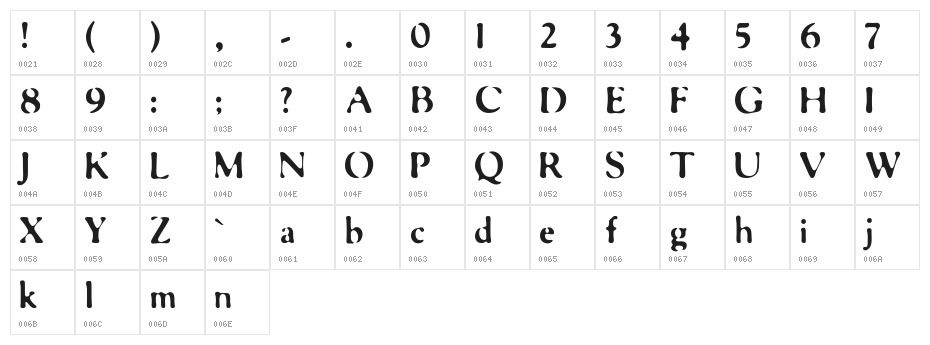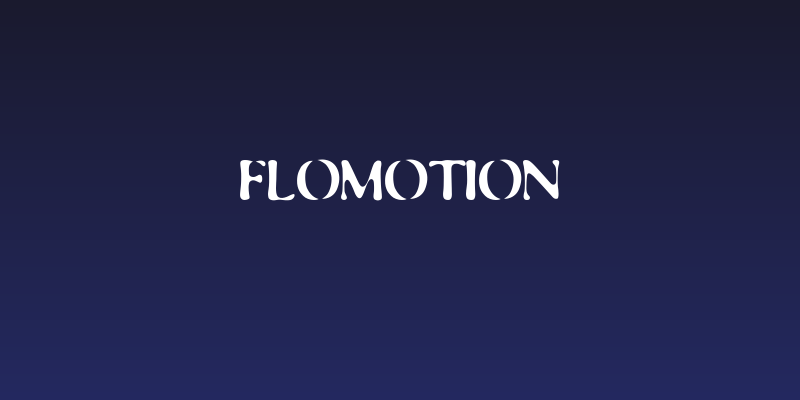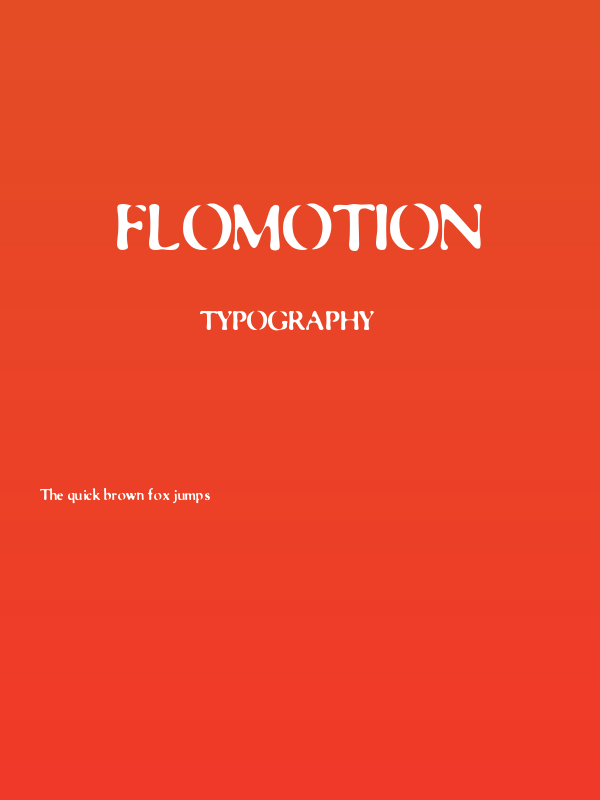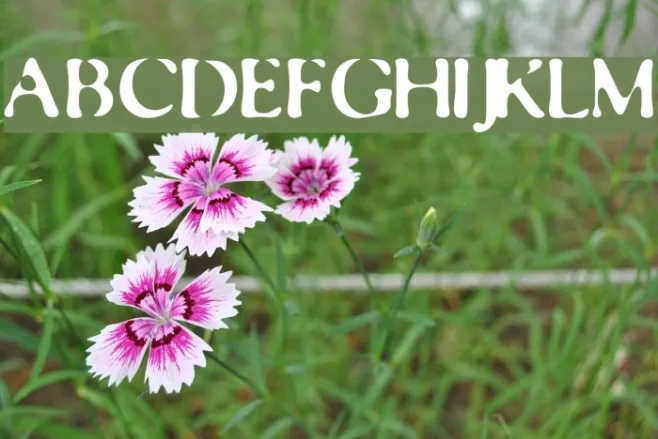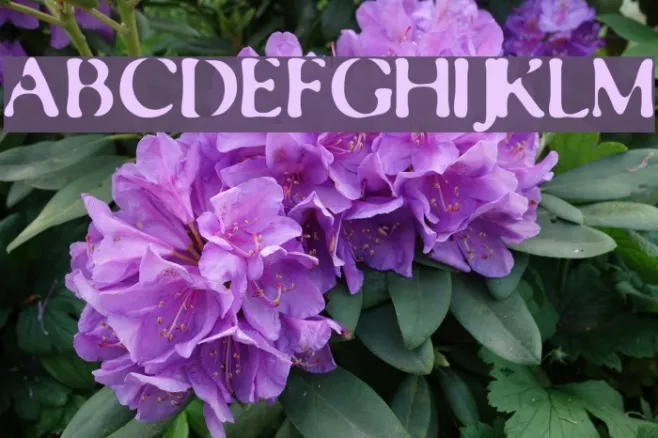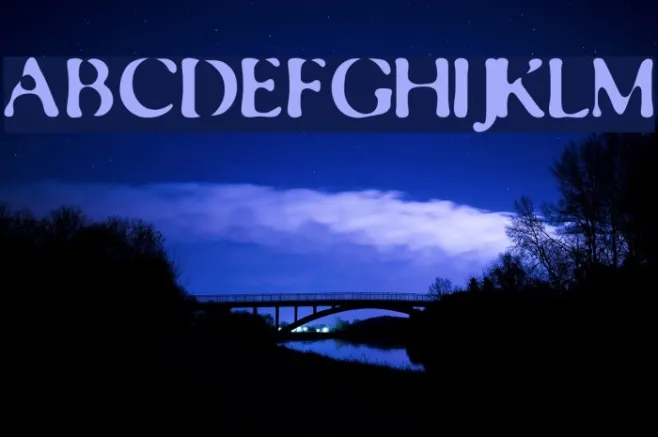
FloMotion Font
FloMotion Description
This font features a bold and playful design with a unique, wavy appearance that gives it a sense of movement and fluidity. The characters are thick and rounded, with a whimsical style that makes them stand out. The uppercase letters have a strong presence, while the lowercase letters maintain a consistent, flowing look. Numbers are equally bold and maintain the same playful characteristics. The special characters are designed to match the overall style, ensuring a cohesive look across all elements.
| Proposed Projects | Ideal for creative projects such as children's books, playful branding, posters, and event invitations. |